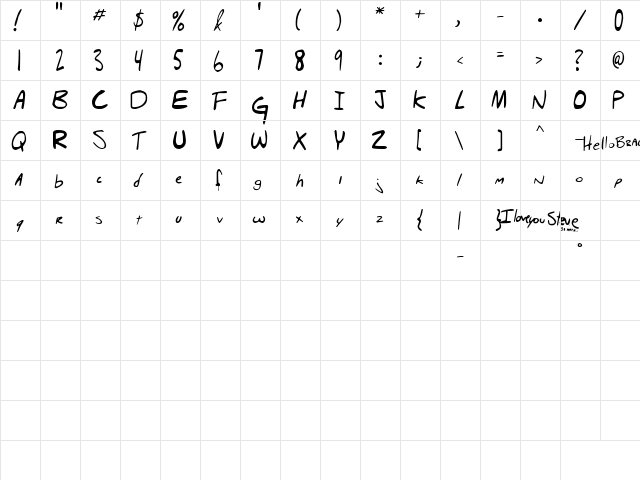
Hello Brady! Regular
| Designer | Shea Allen |
Design Context for Hello Brady! Typeface
Hello Brady! is a composed and adaptable typeface that performs quietly and consistently across a wide range of design contexts.
Pro Tip: Pair Hello Brady! with a font of contrasting weight or personality to build a more expressive typographic hierarchy.